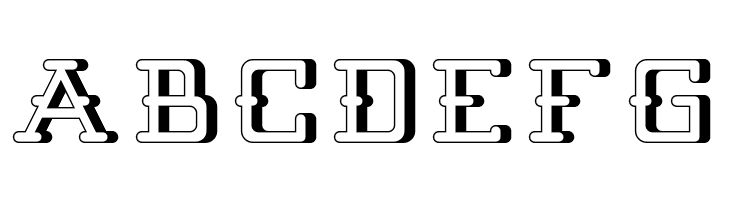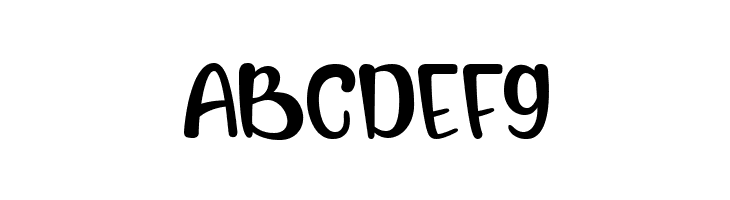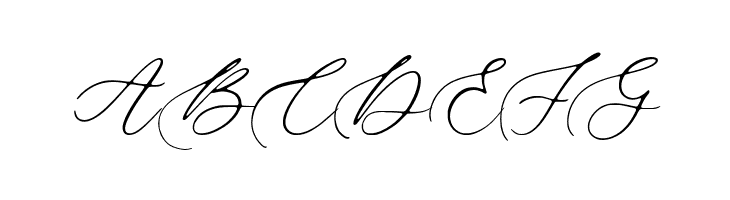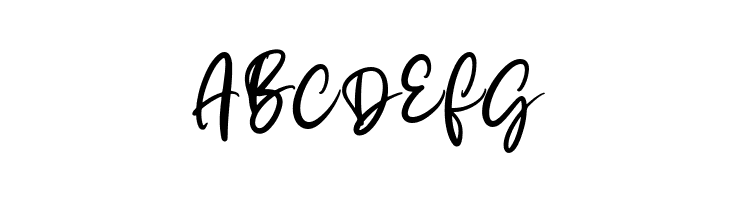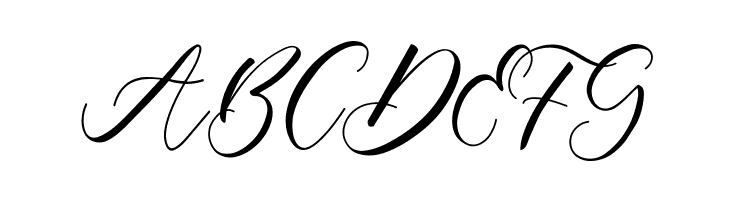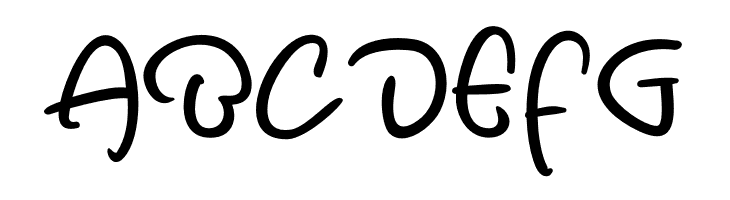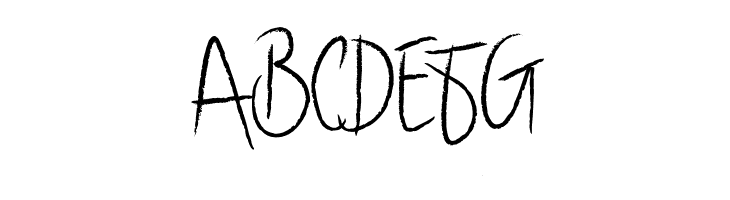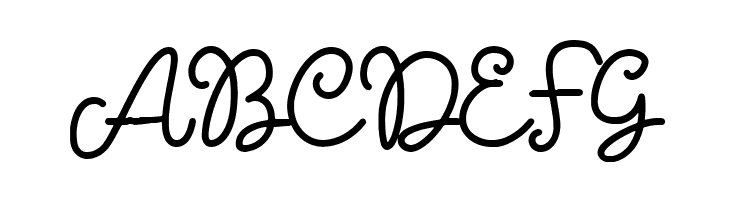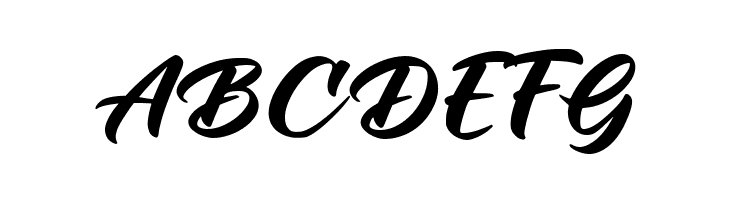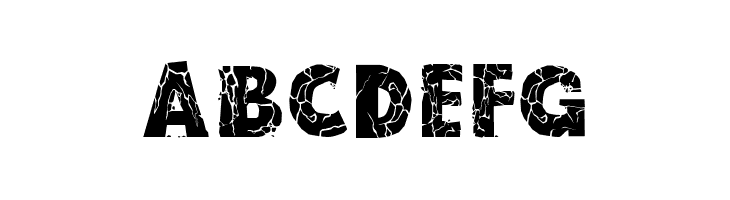
• BarQ Blind
A bold, geometric sans-serif font with a modern and clean design.
• BarQ Blind Bold Bold
A bold, geometric font with a modern and impactful style.
• BarQ Bold
A bold, geometric font with strong, clean lines and excellent legibility.
• Barthilda
A casual, handwritten font with fluid, cursive strokes.
• Basic Comical Italic NC
A playful, italicized font with smooth, rounded strokes and moderate contrast.
• Basic Comical Regular NC
A playful, rounded font with a casual, comic-like style.
• Basic-Trip
A playful, bold, and hand-drawn style font with rounded, whimsical characters.
• BasicHeader
A playful, hand-drawn font with a whimsical and bold style.
• Basket of Candy
A playful, hand-drawn font with a whimsical and casual style.
• Bassist
A modern, angular font with geometric shapes and sharp lines.
• BATIK WORLDWIDE
A decorative font with intricate batik-inspired patterns.
• Batter Up 3D
A bold, 3D font with a vintage sports theme and shadow effect.
• Batter Up Outline
A bold, outlined font with a vintage sports aesthetic.
• Battgge
A dynamic, expressive handwritten font with fluid strokes and an artistic touch.
• bauwerck
• bawnee